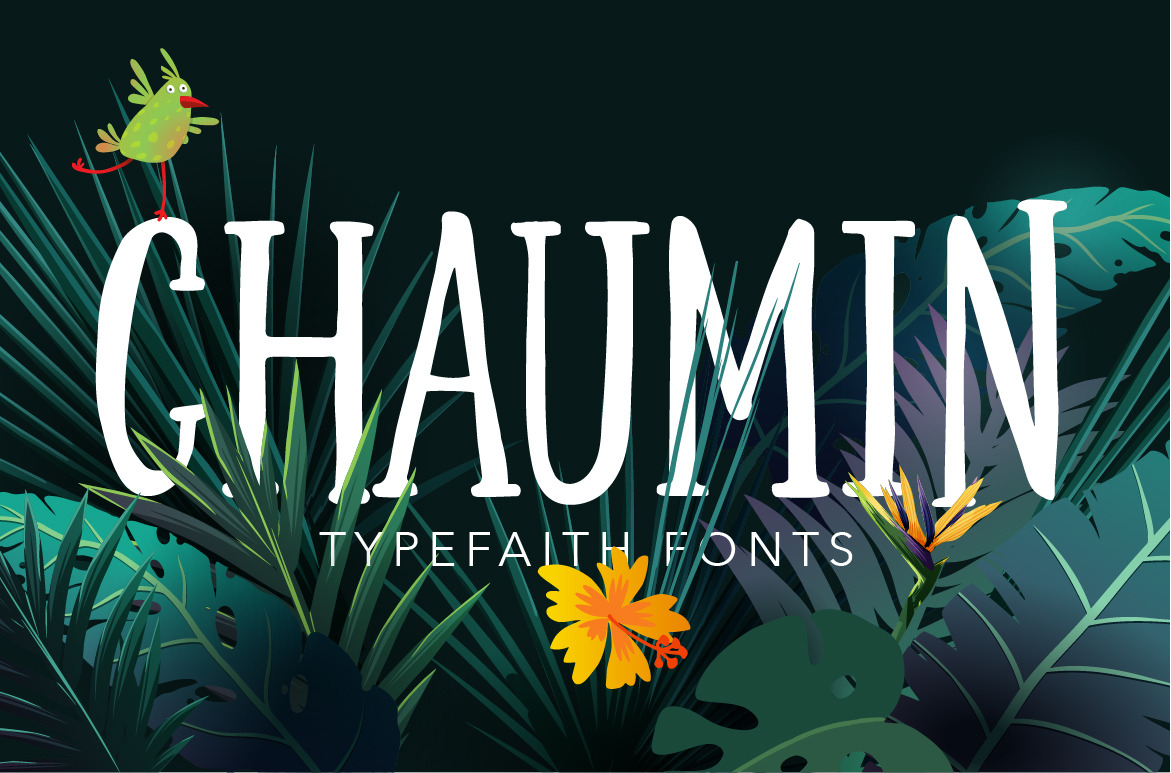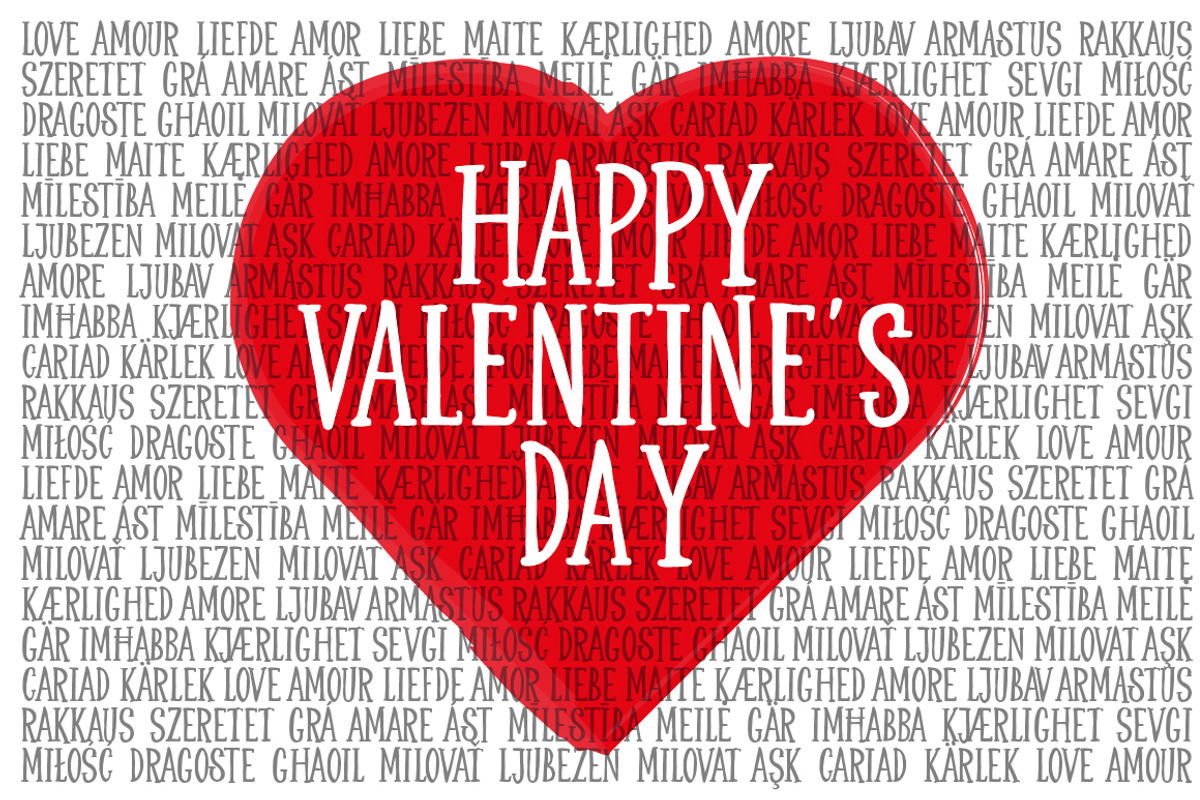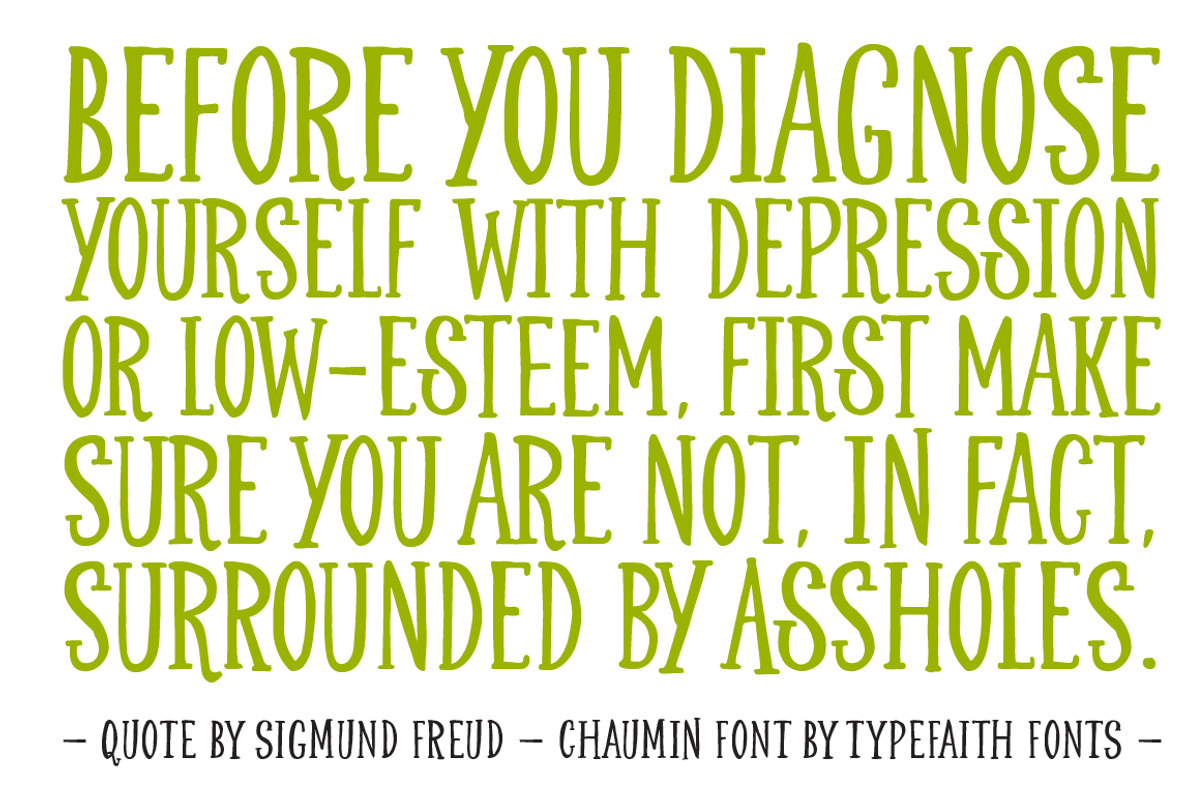
Chaumin Handcrafted font
Chaumin is a fun, usable handwritten font made to convey the feeling of handwritten charm and personality!
Regular and Bold
Language support: basic Latin and all European languages